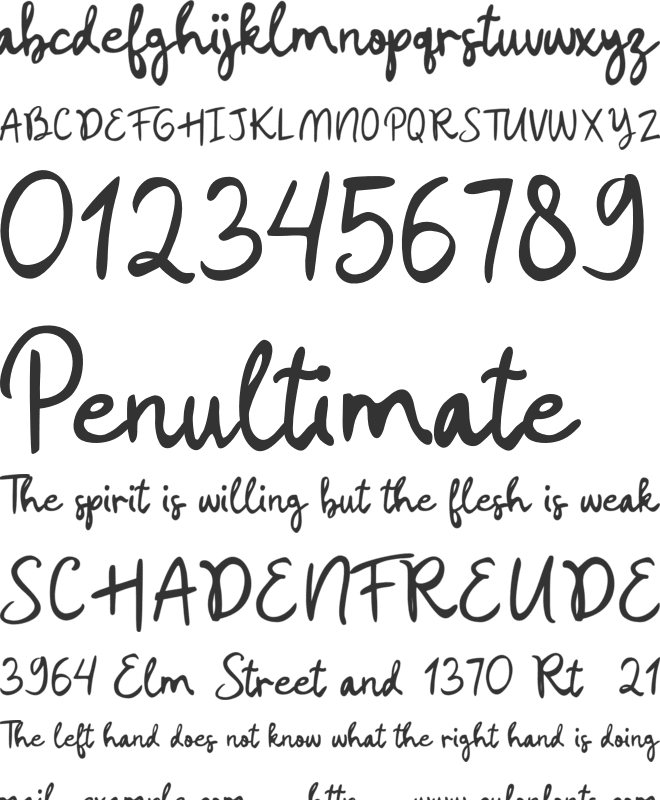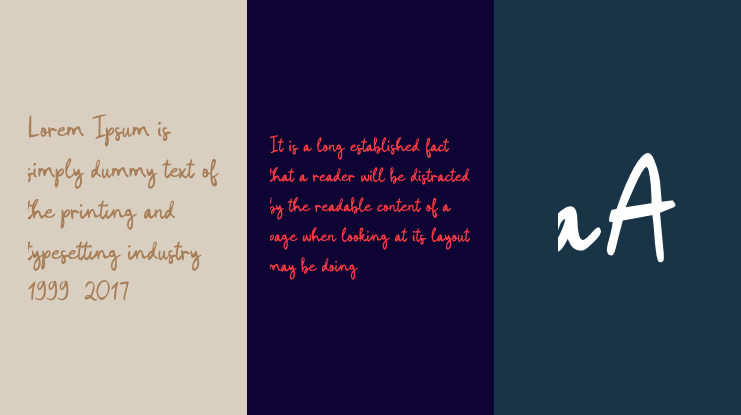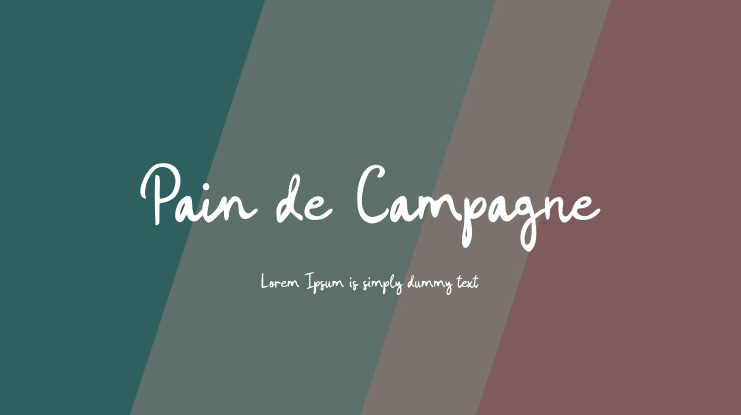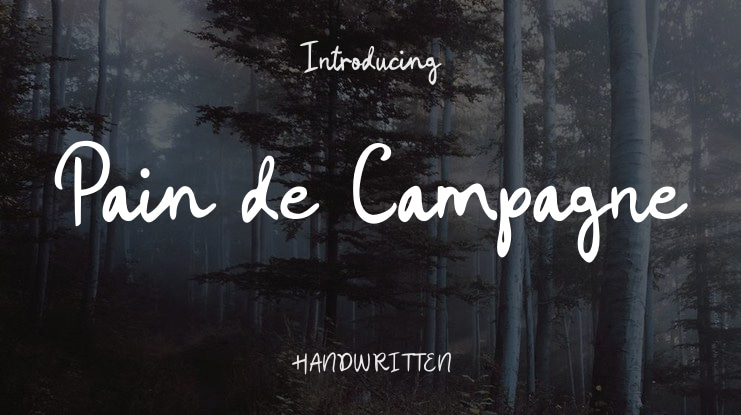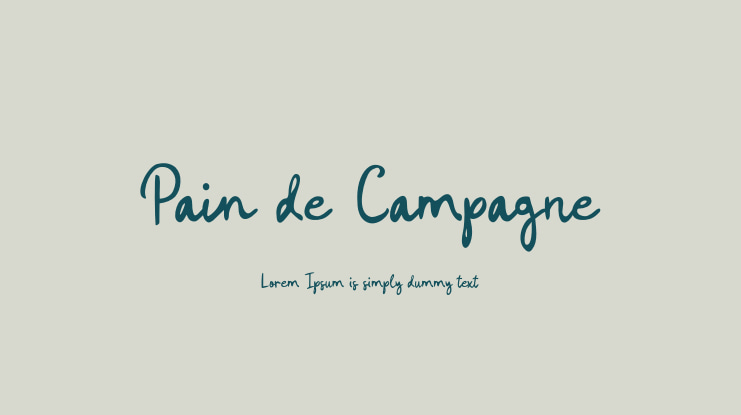
Pain de Campagne Font
Meet Pain de Campagne, a font inspired by natural, organic handwriting with a touch of vintage charm. This versatile typeface is perfect for logos, headlines, signage, and various formal applications like invitations, labels, magazines, and more, adding a unique and beautiful touch to your digital creations.